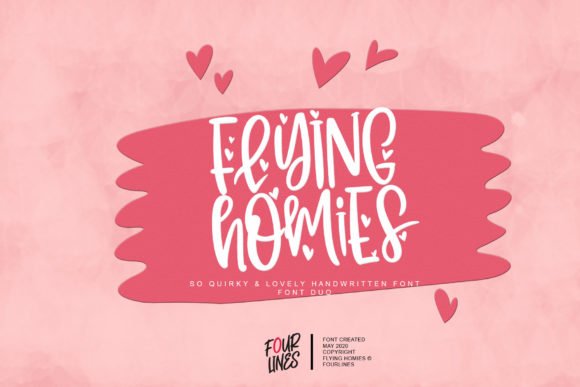
Have you ever found yourself stuck in a design rut, scrolling through endless options in search of the perfect font? We’ve all been there – the frustration, the doubt, the desperate search for something, anything, that sparks creativity. And then, it happens. A font catches your eye, its quirky charm and effortless charm captivating your imagination. For me, that font was Flying Homies, a delightful handwritten script that’s been a game-changer in my design process.
Designed to add a romantic touch to your designs, Flying Homies Font comes in two gorgeous styles that are sure to fall in love with. Whether you’re creating wedding invitations, stationery art, social media posts, or greeting cards, this font is the perfect companion. Its authentic feel and playful vibe make it a valuable addition to any designer’s toolkit, elevating your work with a touch of whimsy and personality.
Flying Homies Font Key Features
- Font Family: Flying Homies Font is a unique, hand-drawn font designed for creative and playful purposes.
- Character Set: Includes a wide range of characters, including uppercase and lowercase letters, numbers, and special characters, making it suitable for everyday use.
- Unique Characteristics: Features a playful, hand-drawn style with varying line widths, giving it a distinctive and eye-catching appearance.
Flying Homies Font Review
I recently had the chance to work with the Flying Homies Font, and I’m sharing my honest review with you. Overall, I think this font has some great qualities, but it also has its limitations.
- Unique and playful style – The Flying Homies Font has a fun, energetic vibe that’s perfect for creative projects.
- Good legibility – Even at smaller font sizes, the letters are clear and easy to read.
- Customizable – The font includes a range of weights and styles, making it easy to adjust to different design needs.
- Not ideal for body text – The font’s playful style can make it difficult to read large blocks of text.
- Limited language support – The font may not be compatible with all languages or character sets.
- Not suitable for formal designs – The font’s casual vibe may not be suitable for formal or professional projects.
The Flying Homies Font is a great choice for designers looking to add a playful touch to their projects. While it has its limitations, it’s a versatile font that can be used in a variety of contexts. Just be mindful of its limitations, and you’ll be able to create some amazing designs with it.
Tips for Getting the Most Out of the Flying Homies Font
To get the most out of the Flying Homies font, try using it in bold or italic styles to add emphasis to your text. You can also use the font in combination with other fonts to create a unique and eye-catching design.
The Flying Homies font is perfect for use in social media graphics, flyers, and posters. It’s also great for use in digital design projects, such as infographics and presentations.
Alternatives to Flying Homies Font
The Great Vibes Font is a playful, cursive script font ideal for adding a carefree and fun touch to designs. It’s perfect for use in branding, advertising, and social media graphics. In comparison to Flying Homies Font, Great Vibes Font has a more refined and elegant feel, making it suitable for a wider range of applications.
Pacifico Font is a beautiful, handwritten font that exudes a sense of relaxation and calmness. It’s ideal for use in designs that require a soothing and peaceful atmosphere, such as wellness, travel, or spa-related projects. While Flying Homies Font has a more energetic feel, Pacifico Font offers a more subtle and understated approach.
Carolyna Pro Font is a modern, sans-serif font that’s perfect for use in designs that require a touch of sophistication and elegance. It’s ideal for branding, packaging, and editorial designs. Compared to Flying Homies Font, Carolyna Pro Font has a more streamlined and professional feel, making it suitable for a wider range of industries.